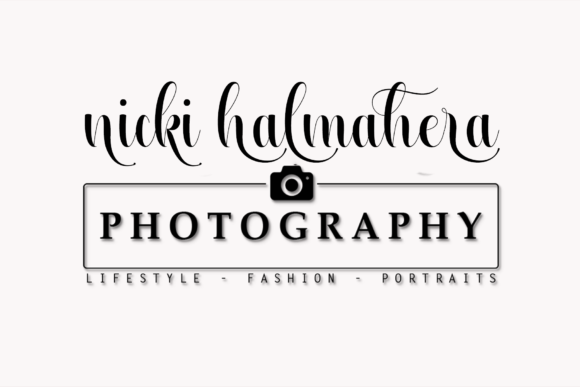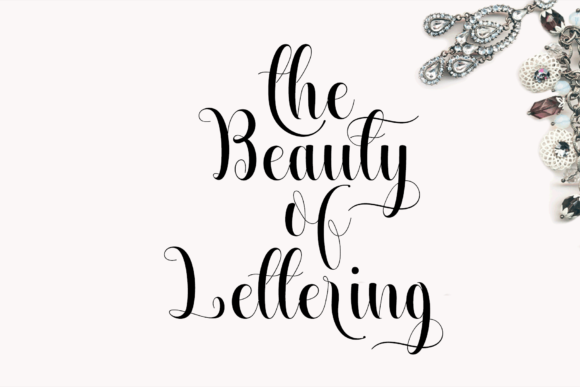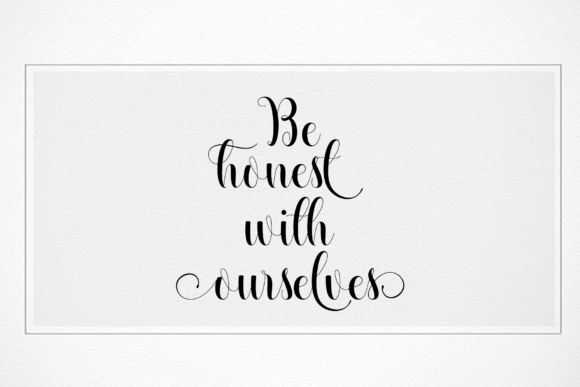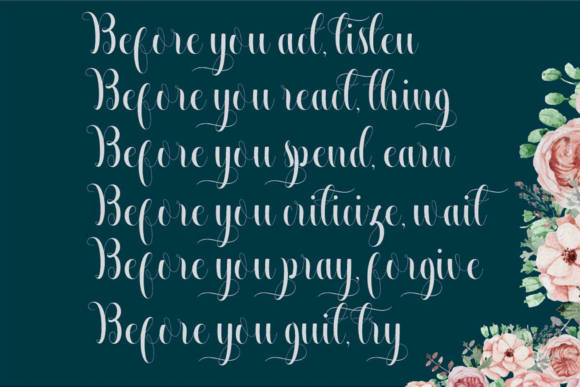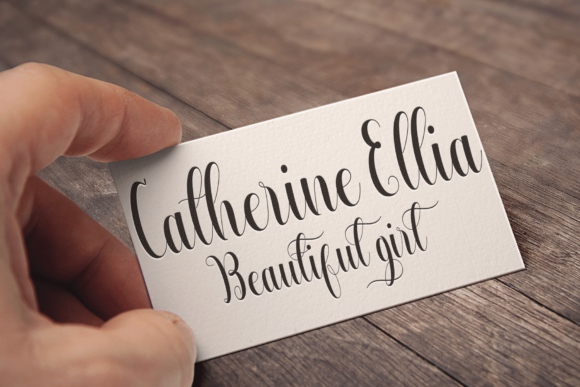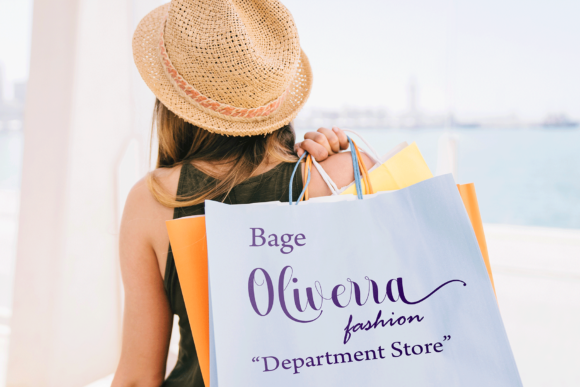
Unlock the Magic of Beautiful Calligraphy Font
Have you ever sat at your desk, staring at a blank page, waiting for inspiration to strike? For designers, this moment is all too familiar. But what if I told you that the right font can be the spark that ignites your creativity?
Enter the Beautiful Calligraphy Font, a stunning script font that’s perfect for adding a touch of elegance to any project. With its intricate details and beautifully crafted design, this font is a valuable asset to any designer’s library. Whether you’re working on a wedding invitation, a book cover, or a social media graphic, the Beautiful Calligraphy Font has the potential to elevate your design and make it truly special.
With its PUA encoding, accessing all glyphs and swashes is a breeze, giving you the freedom to experiment and create unique designs with ease.
Key Features of Beautiful Calligraphy Font
- Unique Characteristics: The Beautiful Calligraphy Font features intricate and elegant letterforms, with subtle flair and connection between letters, creating a beautiful and sophisticated aesthetic.
- Language Support: The font supports a wide range of languages, including English, Spanish, French, German, Italian, Portuguese, and many others, making it a versatile choice for global design applications.
- Customizable: The Beautiful Calligraphy Font can be customized to suit specific design needs, with options to adjust letter spacing, word spacing, and line height, allowing designers to achieve a unique look and feel.
- High-Quality Glyphs: The font features high-quality glyphs, carefully crafted to ensure legibility and readability, making it suitable for use in a variety of applications, from body text to headlines.
Designer Review: Beautiful Calligraphy Font
Overall, I think the Beautiful Calligraphy Font is a beautiful addition to any design project. It’s a sophisticated and elegant font that can add a touch of luxury and sophistication to any text.
What Works Well: ✨
- The font is highly customizable, with a wide range of settings and options to adjust to suit your needs.
- The letterforms are beautifully crafted, with intricate details and flourishes that add to the font’s elegance.
- The font is highly legible, even at small font sizes, making it a great choice for body text or headlines.
- The font can be quite complex to use, especially for those who are new to calligraphy fonts.
- The font may not be suitable for projects that require a more modern or minimalist aesthetic.
- The font is a bit on the heavy side, which can make it difficult to use in large blocks of text.
Overall, I would give the Beautiful Calligraphy Font 4 out of 5 stars. It’s a beautiful and sophisticated font that is perfect for projects that require a touch of elegance and luxury. However, it may not be the best choice for every project, and requires a bit of skill and patience to use effectively.
The Beautiful Calligraphy Font is perfect for:
Special occasion cards and gifts
Brand logos and typography
Artistic and creative projects
Any project where you want to add a touch of elegance and sophistication
Q: Can I customize the Beautiful Calligraphy Font?
Yes, the Beautiful Calligraphy Font includes a range of OpenType features that allow for customization and manipulation of the font. These features include ligatures, swashes, and alternate characters, which can be accessed using design software that supports OpenType features.